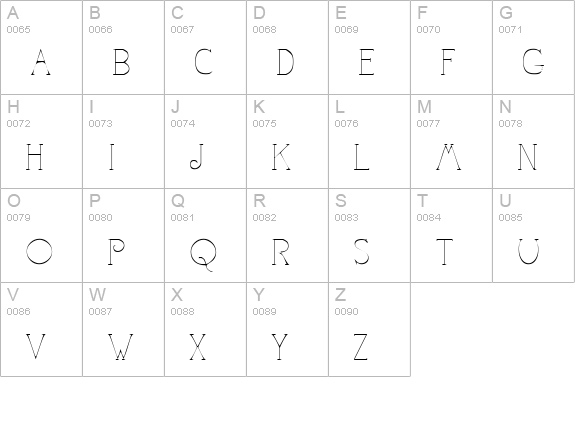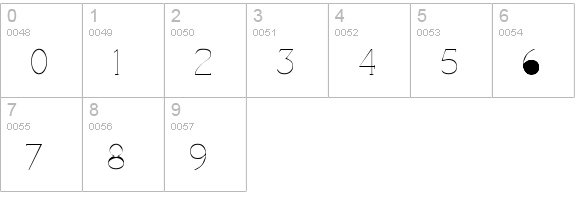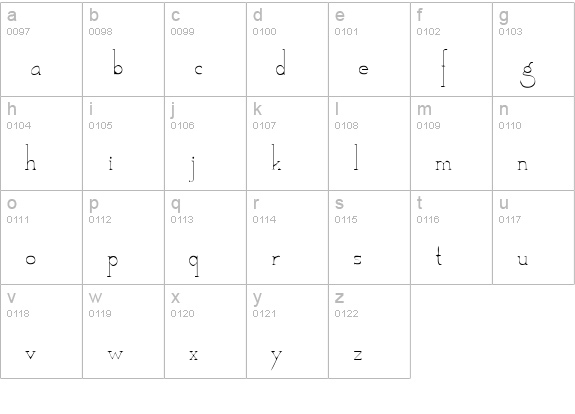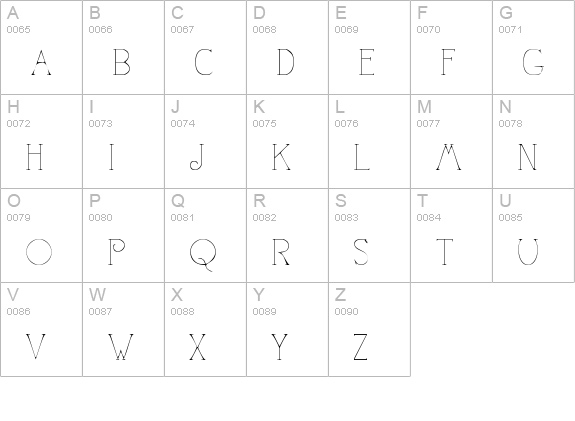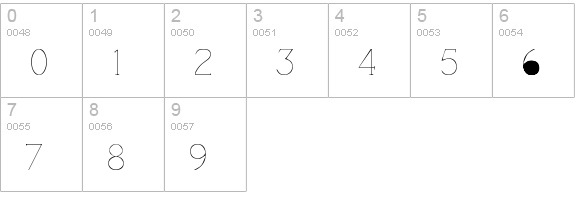
Camelot Regular is the standard, neutral variant in the Camelot typeface family \xE2\x80\x94 well suited to general body text, paragraphs, and standard typographic work.
Camelot Regular font is a timeless and elegant typeface that exudes sophistication and charm. With its classic serifs and clean lines, Camelot Regular is perfect for adding a touch of refinement to any design project. Whether you're working on a branding project, creating invitations, or designing a website, Camelot Regular is sure to make a lasting impression. The best part? Camelot Regular is completely free to download at FontsMarket.com! Now you can elevate your designs with this exquisite font without having to spend a penny. Don't miss out on the opportunity to add Camelot Regular to your font collection and take your projects to the next level. Download it today and let your creativity shine!